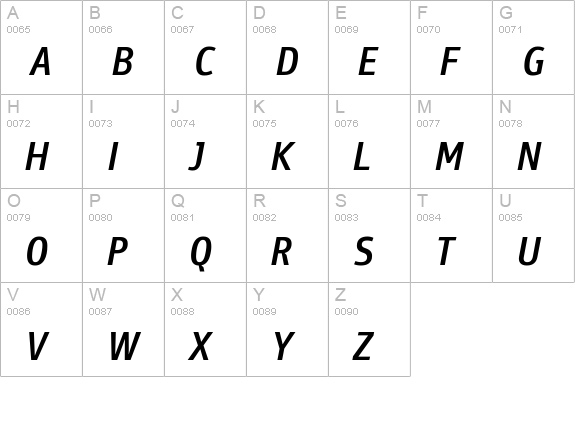
PFBulletinSansPro-MediumItalic font is a stylish and versatile typeface that strikes the perfect balance between professionalism and creativity. Its medium weight and italic style make it ideal for adding emphasis and personality to your designs. This font exudes a sense of modernity and sophistication, making it a great choice for a wide range of projects. With its clean lines and elegant curves, PFBulletinSansPro-MediumItalic font is sure to catch the eye and leave a lasting impression. Whether you're designing a logo, creating a website, or crafting a marketing campaign, this font will help you stand out from the crowd. Best of all, PFBulletinSansPro-MediumItalic font is available for free download at FontsMarket.com. This means you can start using this beautiful font in your projects right away, without any cost involved. Don't miss out on the opportunity to add PFBulletinSansPro-MediumItalic font to your font library today!